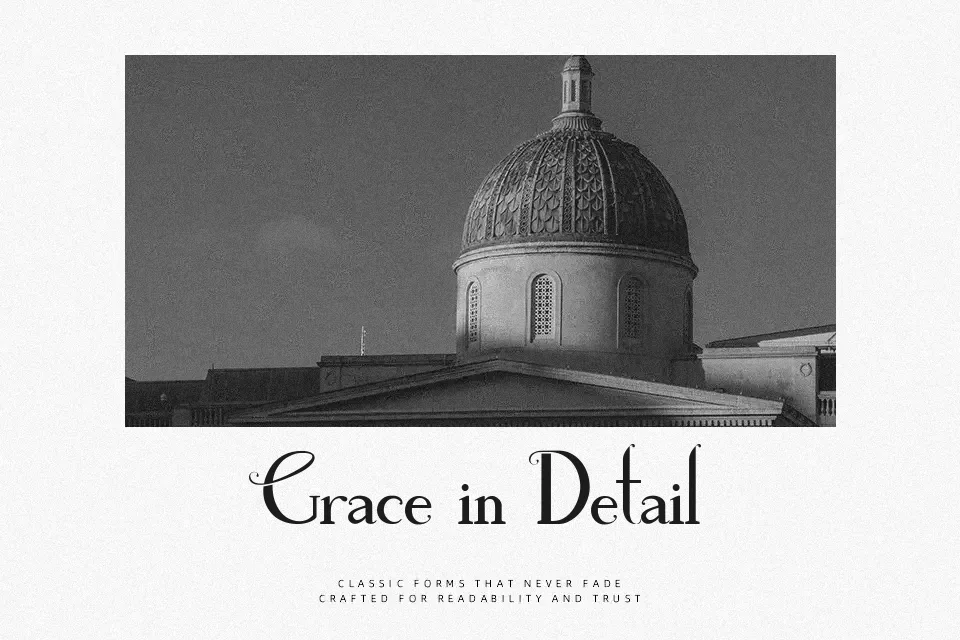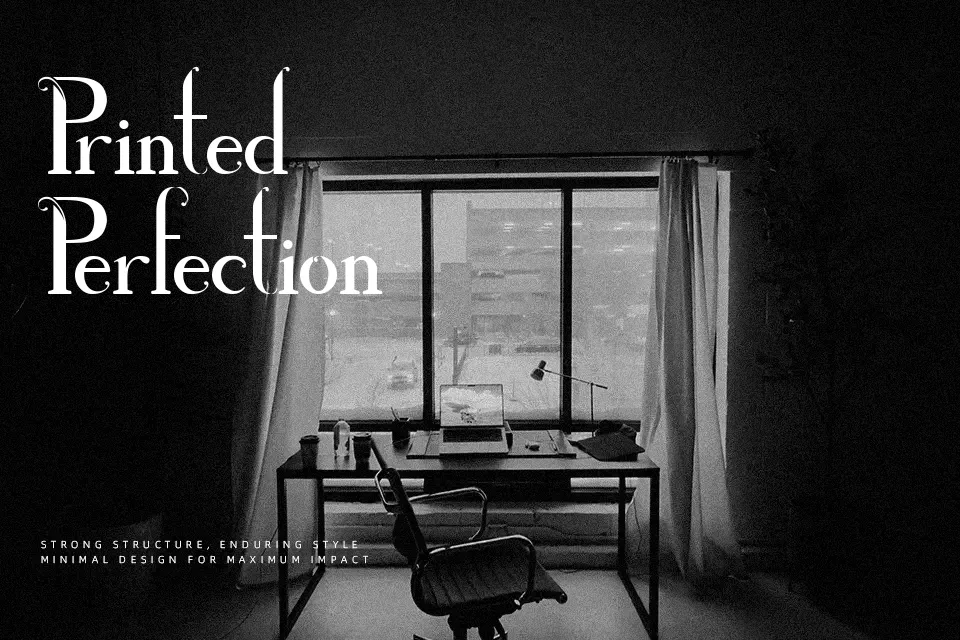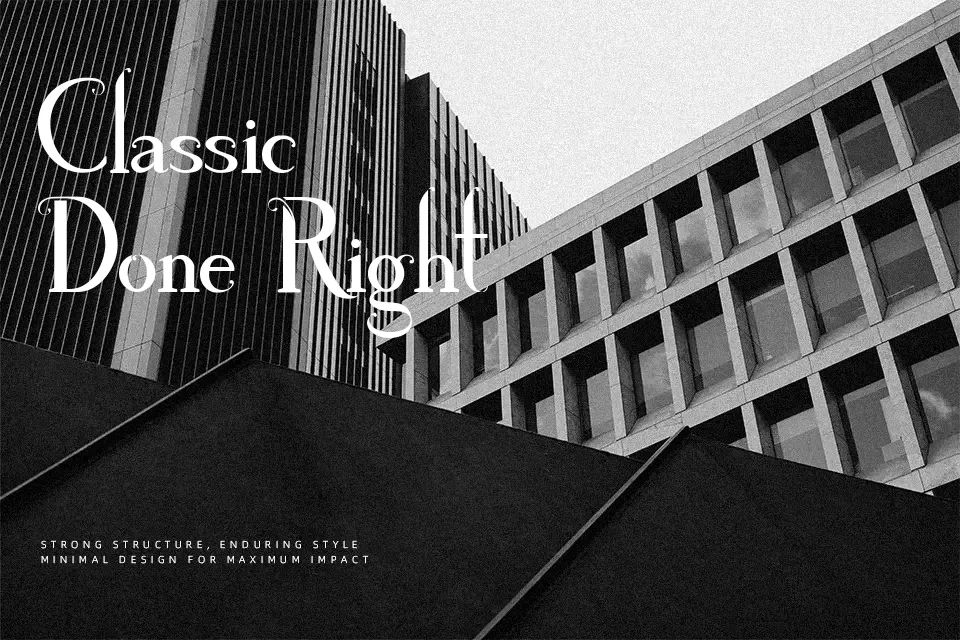
Poison Apple Font
Poison Apple Font introduces an ornate serif structure characterized by sweeping swashes and high-contrast strokes. The letterforms display a dramatic interplay between thick stems and delicate, curving terminals, creating a pronounced visual rhythm that commands attention. Generous spacing accommodates the extensive decorative flourishes, ensuring the elaborate characters do not heavily overlap. These expressive details perform exceptionally well when utilized in large headlines, fantasy-themed packaging, or elegant event invitations. However, the intricate stylings and varied proportions significantly reduce continuous reading comfort. This typeface becomes less effective in dense paragraphs or small interface labels, where the complex swashes tend to muddy the overall clarity. The ornate design requires deliberate, spacious layouts to truly maximize its striking aesthetic impact.
fantasy book covers
vintage packaging
elegant invitations
boutique branding
continuous paragraph text
small interface elements
spreadsheet data
Perfect for branding, headline, and packaging, with a artistic and decorative style.